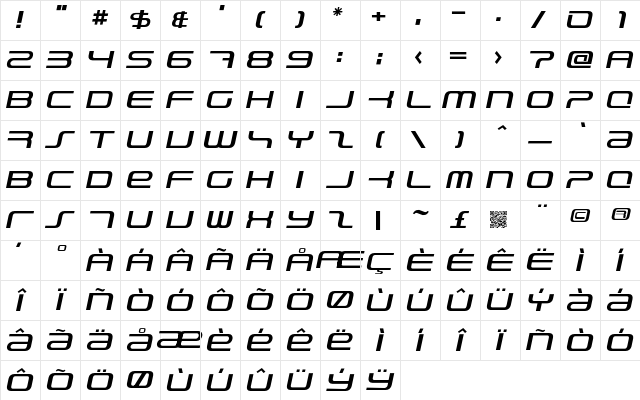
Complete PhatBoy Slim Italic glyph index. Displaying only characters natively supported by PhatBoy Slim Italic font.
PhatBoy Slim is a composed and adaptable typeface that performs quietly and consistently across a wide range of design contexts. The slanted form adds forward momentum and visual energy.
Pro Tip: Use PhatBoy Slim for emphasis, pull quotes, and subheadings where its slanted energy can add rhythm to the layout.